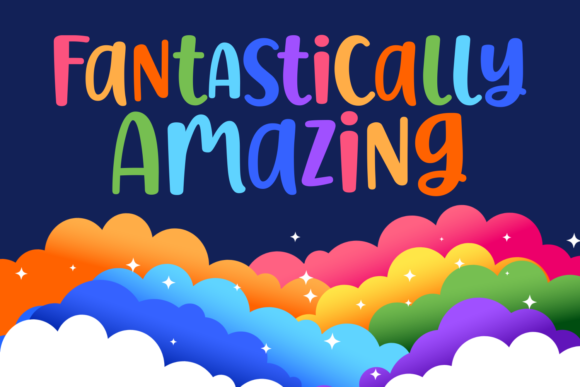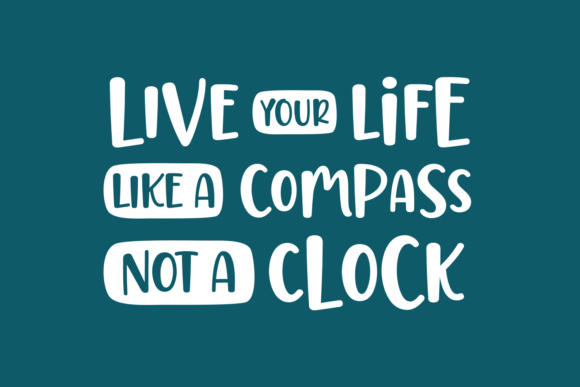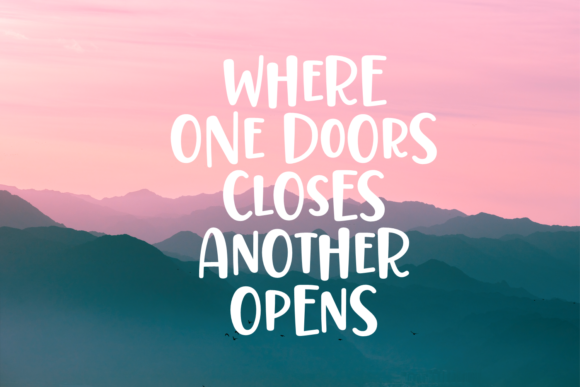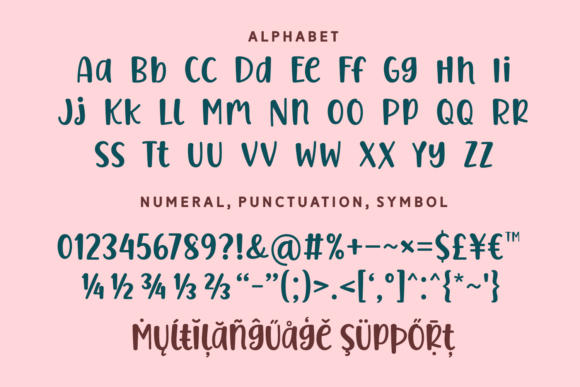
Hello Bright Morning Font: A Vibrant Display Font to Elevate Your Designs
Are you tired of using the same old fonts in your designs? Do you want to add a touch of positivity and energy to your projects? Look no further than Hello Bright Morning Font! This high-spirited display font is designed to radiate warmth and optimism, making it perfect for designers and crafters looking to create eye-catching designs.
What is Hello Bright Morning Font?
Hello Bright Morning Font is a carefully crafted display font that exudes joy and enthusiasm. Its lively characters are designed to grab attention and leave a lasting impression. Whether you’re working on a branding project, a social media graphic, or a craft project, this font is sure to make your design stand out.
Key Features of Hello Bright Morning Font
- High-spirited design: Hello Bright Morning Font is designed to radiate positivity and energy, making it perfect for designs that need a boost of enthusiasm.
- Lively characters: The font features playful and lively characters that are sure to capture attention and add a touch of whimsy to your designs.
Hello Bright Morning Font is a versatile font that can be used in a variety of design projects, including:
- Branding and marketing materials: Use the font to create eye-catching logos, business cards, and brochures that showcase your brand’s personality.
- Social media graphics: Add a touch of positivity and energy to your social media graphics, including Facebook posts, Instagram stories, and Twitter headers.
- Craft projects: Use the font to create custom signs, banners, and decorations for parties, events, and everyday decor.
Why Choose Hello Bright Morning Font?
With so many fonts available, why choose Hello Bright Morning Font? Here are just a few reasons:
- Unique design: The font’s high-spirited design sets it apart from more traditional fonts, making it perfect for designers and crafters who want to add a touch of personality to their projects.
- Easy to read: Despite its playful design, the font is easy to read, making it perfect for use in a variety of design projects.
- Versatile: Hello Bright Morning Font can be used in a variety of design projects, from branding and marketing materials to craft projects and social media graphics.